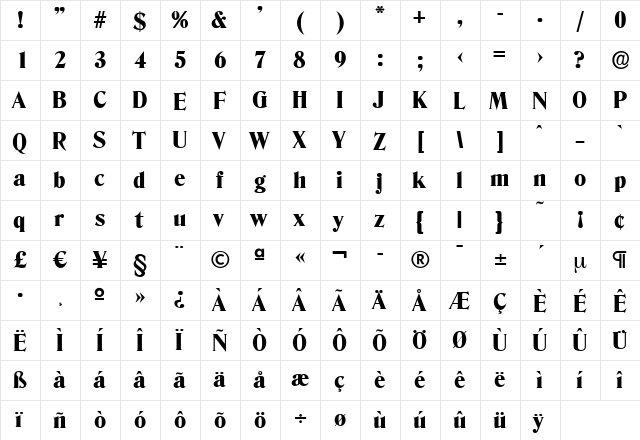
ThomasBecker-Heavy Regular
Design Context for ThomasBecker-Heavy Typeface
ThomasBecker-Heavy offers clean, dependable letterforms without strong stylistic allegiance, making it a practical choice for designers who need flexibility.
Pro Tip: Use ThomasBecker-Heavy in both headline and body roles to test its range before committing to a single application.